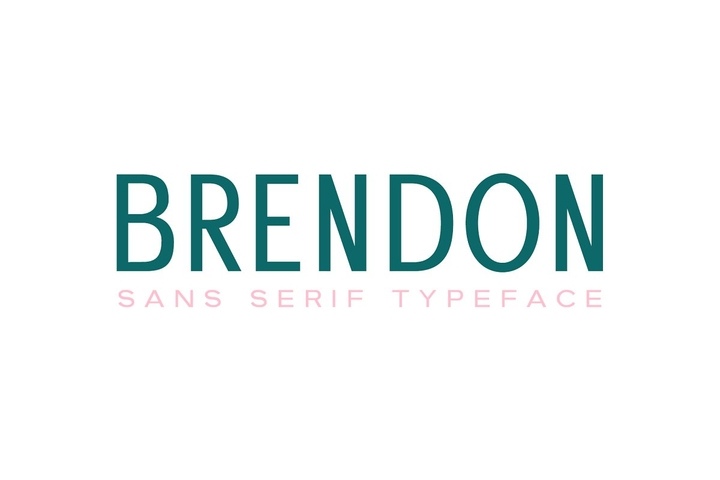
Brendon Sans Serif Typeface
Brendon Sans Serif Typeface is perfect for modern corporate branding, professional website design, clean mobile interfaces, contemporary business presentations, tech startup communications, minimalist marketing materials, digital advertising campaigns, and streamlined user experiences.
Brendon Sans Serif Typeface is exciting because it delivers exceptional geometric clarity with refined humanist warmth, featuring optimized letterforms and balanced proportions that create sophisticated professionalism while maintaining outstanding readability. Its contemporary character projects reliability and innovation across all modern communication platforms.
Brendon Sans Serif Typeface family includes regular weight with stylistic alternates and contemporary variations, providing designers with comprehensive options for creating polished typography solutions that balance modern sophistication with professional accessibility.
Professional designers consistently select Brendon Sans Serif Typeface for its exceptional performance in screen-based applications and corporate communications. The font's optimized rendering capabilities and contemporary styling deliver crystal-clear display quality while maintaining distinctive personality that supports strong brand recognition. Its versatile character accommodates diverse professional needs from detailed documentation to impactful headline applications.
Contemporary businesses appreciate Brendon Sans Serif Typeface's ability to communicate professionalism while maintaining modern appeal and user accessibility. Its balanced personality works equally well in conservative corporate environments and progressive creative contexts, making it an essential typography resource for organizations seeking to establish credible, contemporary brand presence through superior typographic communication and reliable professional performance.